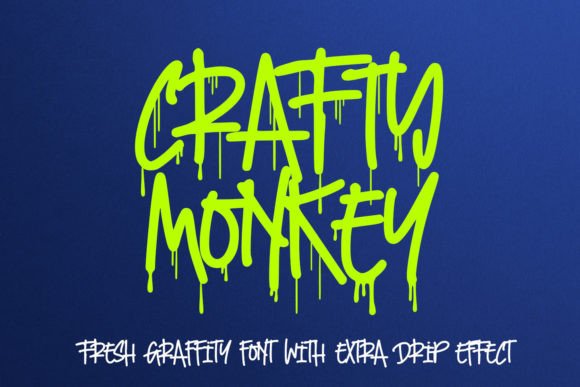
Crafty Monkey Font: The Ultimate Urban-Style Display Font for Trendy Designs
In the world of typography, fonts play a crucial role in conveying the tone and personality of a brand or design. When it comes to creating trendy and eye-catching designs, the right font can make all the difference. This is where Crafty Monkey Font comes in – a cool and fun urban-style display font that’s perfect for streetwear, stickers, posters, and more.
What is Crafty Monkey Font?
Crafty Monkey Font is a graffiti-inspired display font that’s designed to add a touch of urban style to any design. Its unique and playful characters make it the perfect choice for designers looking to create trendy and attention-grabbing designs. Whether you’re working on a streetwear brand, a trendy sticker, or an eye-catching poster, Crafty Monkey Font is the perfect fit.
Key Features of Crafty Monkey Font
So, what makes Crafty Monkey Font so special? Here are some of its key features:
- Graffiti-Inspired Characters: Crafty Monkey Font features graffiti-inspired characters that give it a unique and playful look.
- Urban-Style Design: The font has an urban-style design that’s perfect for streetwear, trendy stickers, and eye-catching posters.
- Display Font: Crafty Monkey Font is a display font, making it perfect for headlines, titles, and other attention-grabbing elements.
- Cool and Fun: The font has a cool and fun vibe that’s perfect for designs that need to stand out from the crowd.
Uses of Crafty Monkey Font
Crafty Monkey Font is a versatile font that can be used in a variety of design projects. Here are some of the most popular uses of the font:
- Streetwear: Crafty Monkey Font is perfect for streetwear brands that want to add a touch of urban style to their designs.
- Trendy Stickers: The font is great for creating trendy stickers that need to stand out from the crowd.
- Eye-Catching Posters: Crafty Monkey Font is perfect for creating eye-catching posters that need to grab attention.
- Social Media Graphics: The font can be used to create social media graphics that need to stand out from the crowd.
- Branding: Crafty Monkey Font can be used to create unique and memorable brand identities.
Benefits of Using Crafty Monkey Font
So, why should you use Crafty Monkey Font in your designs? Here are some of the benefits of using the font:
- Unique and Playful: Crafty Monkey Font adds a unique and playful touch to any design.
- Attention-Grabbing: The font is perfect for creating attention-grabbing designs that need to stand out from the crowd.
- Versatile: Crafty Monkey Font can be used in a variety of design projects, from streetwear to social media graphics.
- Easy to Read: Despite its playful design, Crafty Monkey Font is easy to read, making it perfect for use in headlines and titles.
Tips for Using Crafty Monkey Font
Here are some tips for using Crafty Monkey Font in your designs:
- Use it as a Display Font: Crafty Monkey Font is perfect for use as a display font, so use it to create attention-grabbing headlines and titles.
- Pair it with a Simple Font: Pair Crafty Monkey Font with a simple font to create contrast and make your design stand out.
- Use it in Limited Amounts: While Crafty Monkey Font is attention-grabbing, it can be overwhelming if used in large amounts. Use it in limited amounts to create a bold and eye-catching design.
Crafty Monkey Font is a cool and fun urban-style display font that’s perfect for streetwear, trendy stickers, eye-catching posters, and more. Its graffiti-inspired characters make it a unique and playful addition to any design. With its versatility, attention-grabbing design, and ease of use, Crafty Monkey Font is a great choice for designers looking to add a touch of urban style to their designs.